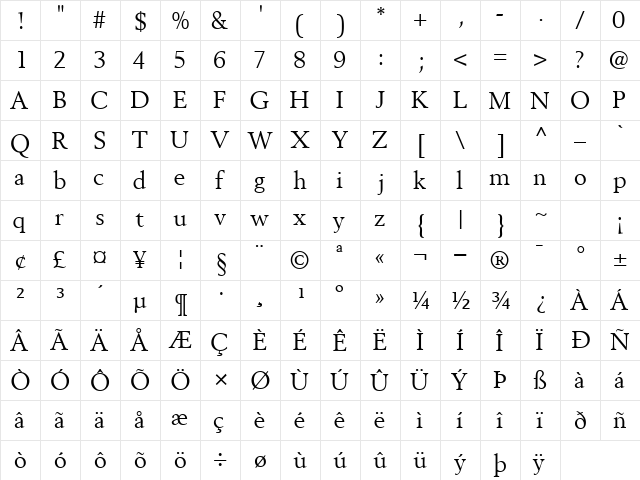
CortexSSK Regular
Design Context for CortexSSK Typeface
CortexSSK offers clean, dependable letterforms without strong stylistic allegiance, making it a practical choice for designers who need flexibility.
Pro Tip: Use CortexSSK in both headline and body roles to test its range before committing to a single application.